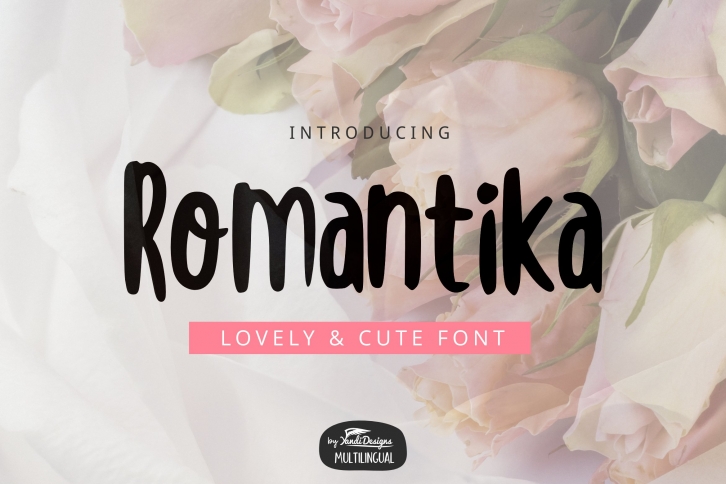
Romantika is a gorgeous font that was realeased on August 27, 2020. The font can be used in many style contexts and design environments. Perfect for invitations, magazines, websites, logos, and more! It was designed by YandiDesigns and the file size is 11.70 MB. Thanks for checking out this font!